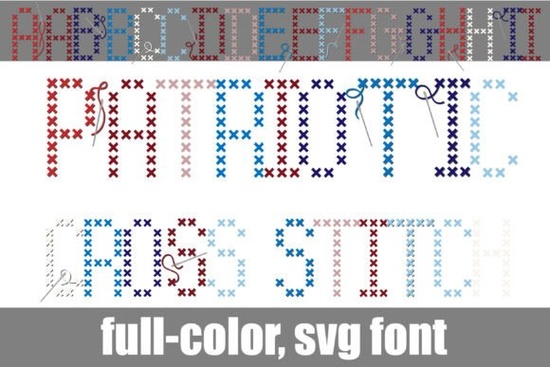
Designing for summer holidays and heritage themes often requires typography that feels handmade and nostalgic. As detailed on our Patriotic Cross Stitch color font page, this specific style offers a fully textured, ready-to-use needlepoint aesthetic. The Patriotic Cross Stitch Font solves this by rendering each letter with distinct, pixel-perfect "X" stitches. These are shaded in deep red, navy blue, soft sky blue, dusty pink, and crisp white. Instead of spending hours trying to replicate embroidery textures digitally, designers and crafters can type out their text and immediately see realistic threading, complete with graphic details like silver sewing needles and trailing floss.
How does an SVG color font change the design process?
Traditional textured fonts require complex manual layering in your design software. You usually have to stack a base color, a shadow layer, and a highlight layer to create depth. Because this typography is built as a rich OpenType-SVG color font, it retains all its vivid textures and multi-colored threads automatically.
This is a practical time-saver for print-on-demand sellers creating rustic Memorial Day posters or custom family heritage scrapbooks. The shading and thread details remain crisp at large sizes, making it highly effective for wall art, tote bags, and wooden kitchen signs.
What kind of projects work best with needlepoint typography?
The classic Americana color scheme makes this typeface highly versatile for seasonal and home decor. Here are a few specific ways small businesses and creative hobbyists use it:
- Fourth of July Barbecue Invitations: Use the letters for the main header to instantly set a festive, rustic tone.
- Country Kitchen Labels: Print the text on vinyl or cardstock to label spice jars, mimicking the look of actual embroidered linen tags.
- Heritage Scrapbooks: Add a sweet folk-art touch to family history pages without needing physical embroidery skills.
- Embroidery-Themed Digital Prints: Combine the stitched letters with graphic elements to sell as digital downloads on marketplaces like Etsy.
Not all design tools can render SVG color fonts properly. If you are using an older program, the text might default to a solid black silhouette, stripping away all the red, white, and blue thread details. Color fonts store actual color data inside the glyph, rather than just an outline that your software fills in.
To ensure you see the silver needles, loose floss, and distinct shading, use compatible software such as:
Quick checklist for printing textured typography
- Test your print resolution at 300 DPI to ensure the individual "X" stitches do not look blurry on physical products.
- Print a small sample on your chosen material, like cardstock or fabric transfer paper, to check how the navy and dusty pink shades interact with the background color.
- Pair the intricate text with clean, minimalist graphics to avoid overwhelming your final composition.
- Group multiple words into a single text box before applying effects to ensure the trailing floss graphics align correctly across the entire phrase.